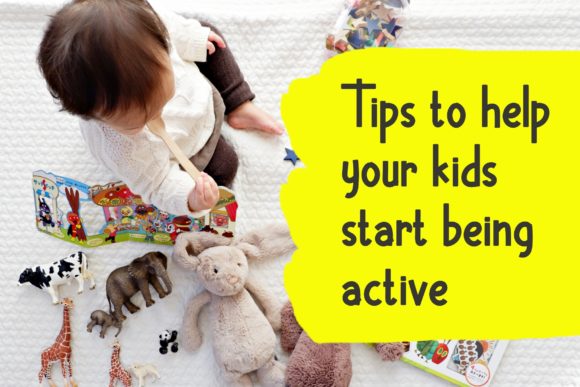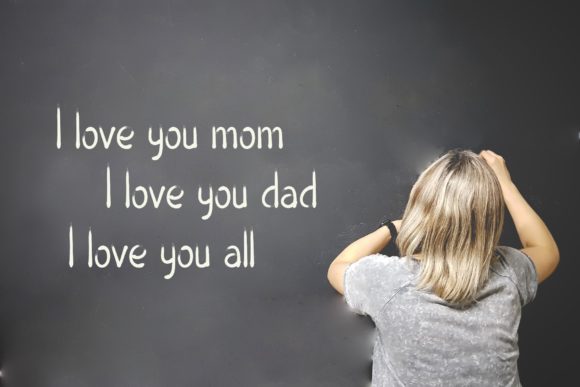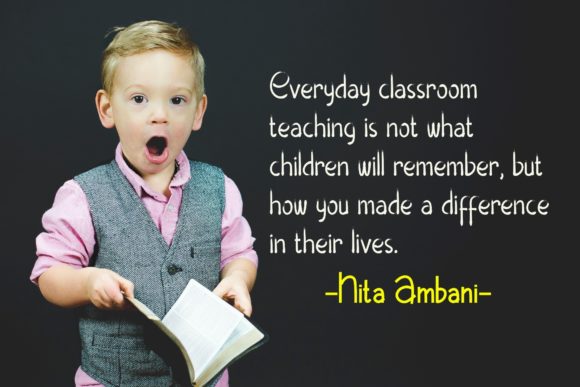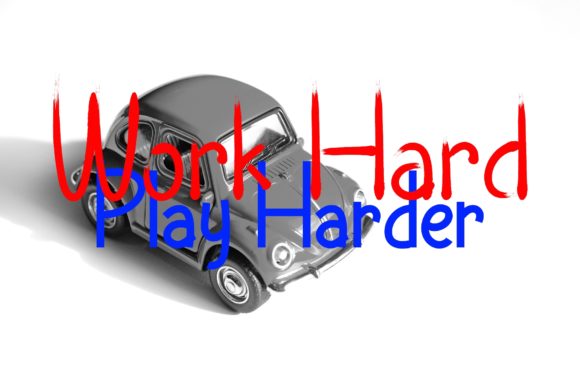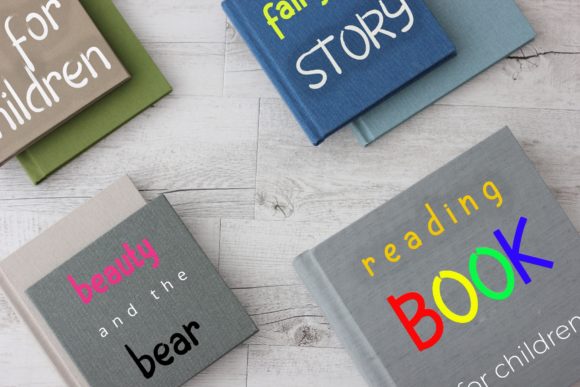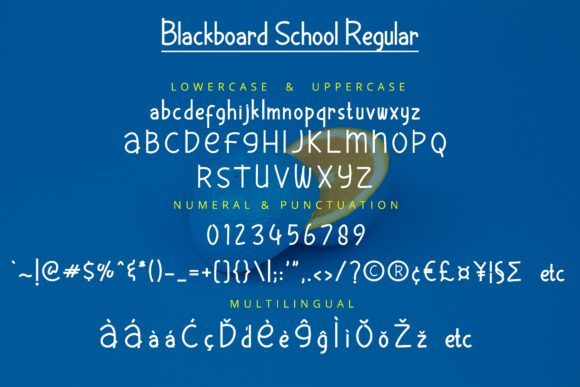
Unleashing the Playfulness of Learning
Who hasn’t doodled in the margins of their notebook or written silly notes to friends during class? The thrill of creating something new and quirky always sparks our imagination. For designers, this creative energy can be a powerful catalyst for innovative ideas. Recently, I stumbled upon the Blackboard School Font, a brand new brush font that captures the essence of playful learning.
This delightful font, available in two versions – regular and awesome – is designed to add a touch of whimsy to your designs. Whether you’re working on a children’s book, a school project, or a fun advertisement, the Blackboard School Font is sure to bring a smile to your face. Its value lies in its ability to convey a sense of carefree joy, making it an invaluable addition to any designer’s toolkit.
Blackboard School Font Key Features
- Unique Characteristics: The Blackboard School Font features a unique, hand-drawn design that evokes the feel of traditional chalkboard writing, with subtle imperfections and texture that add to its charm.
Designer Review: Blackboard School Font
Overall, I think the Blackboard School Font is a cute and charming font. It’s perfect for educational institutions, schools, or any project that needs a vintage or nostalgic feel. ✨ The font’s design is reminiscent of old chalkboards, making it a great choice for designs related to education or learning.
Some of the things that work well about this font include:
- Its unique and distinctive design, which sets it apart from more common fonts.
- Its versatility in being used for both headings and body text.
- Its ability to evoke a sense of nostalgia and familiarity.
- The font may be too informal or playful for certain designs or applications.
- It may not be suitable for large blocks of text, as it can be quite difficult to read in certain cases.
- The font’s design may not be as sophisticated or refined as some other options.
Overall, I think the Blackboard School Font is a great choice for designers who want to add a touch of whimsy and personality to their designs. It’s perfect for educational projects, and can also be used in a variety of other contexts where a playful or vintage feel is desired. ⚠️ Just be aware of its limitations, and use it in moderation.
Tips for Getting the Most Out of Blackboard School Font
Use the Blackboard School Font for educational materials, such as lesson plans, worksheets, and certificates.
Pair the font with other educational fonts to create a cohesive and professional design.
Experiment with different font sizes and colors to make your text more readable and visually appealing.
Use the Blackboard School Font for:
Lesson plans and educational materials
Worksheets and